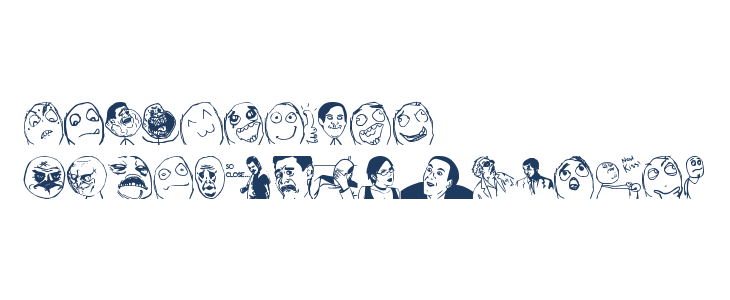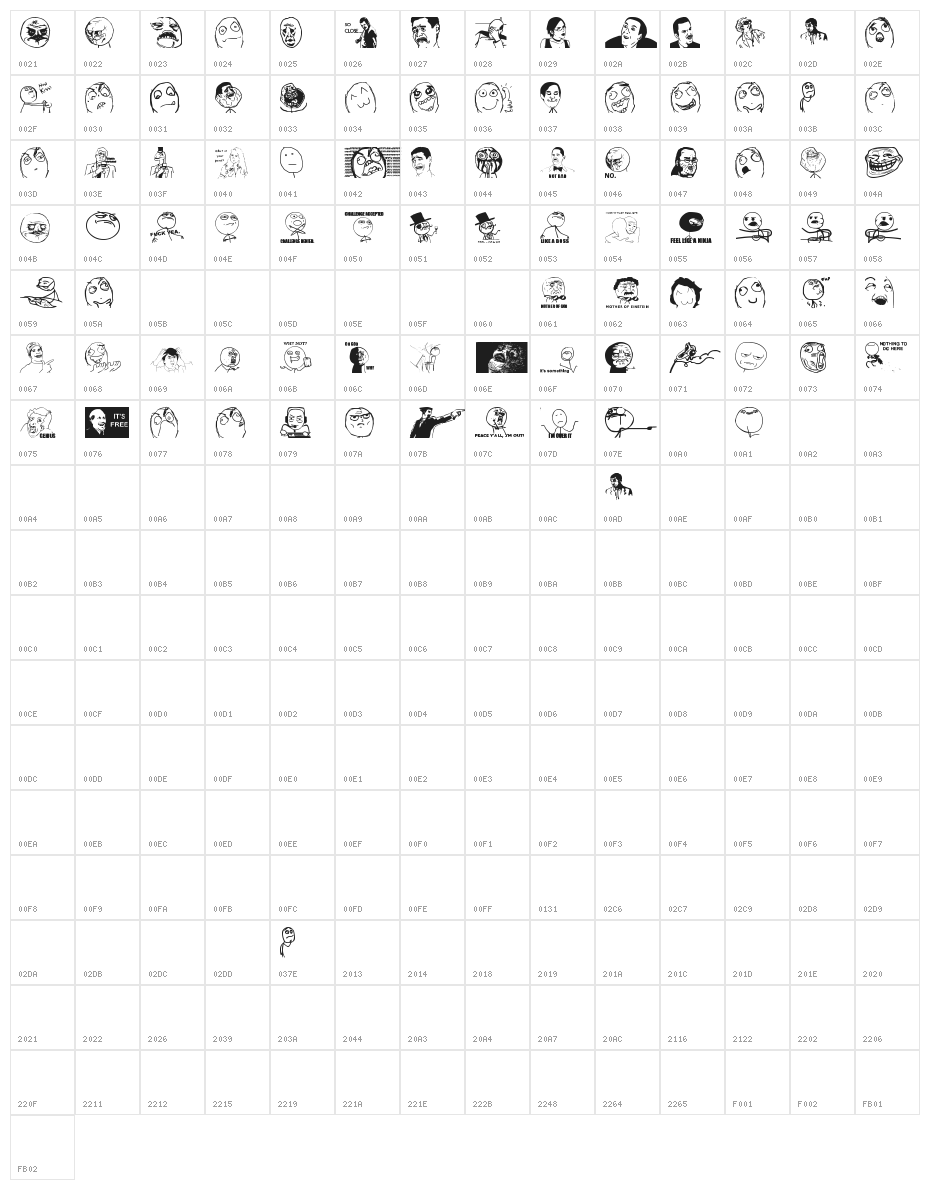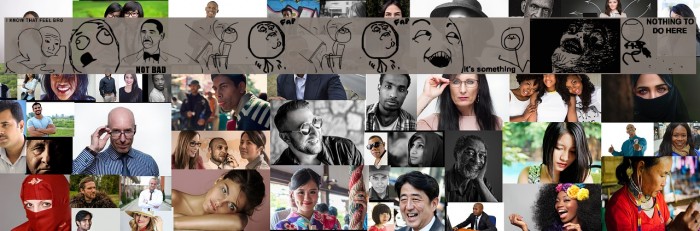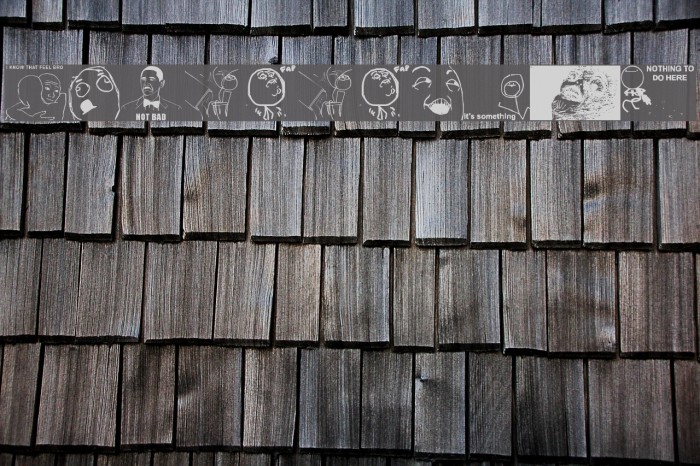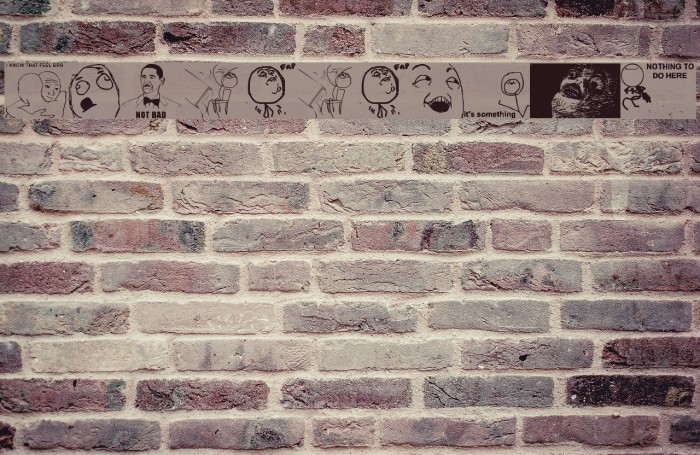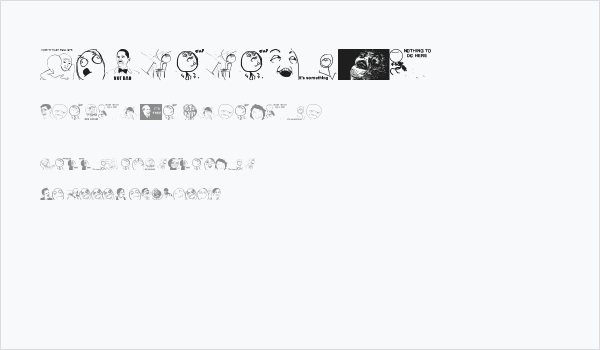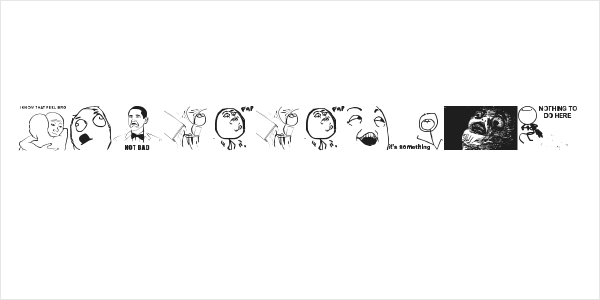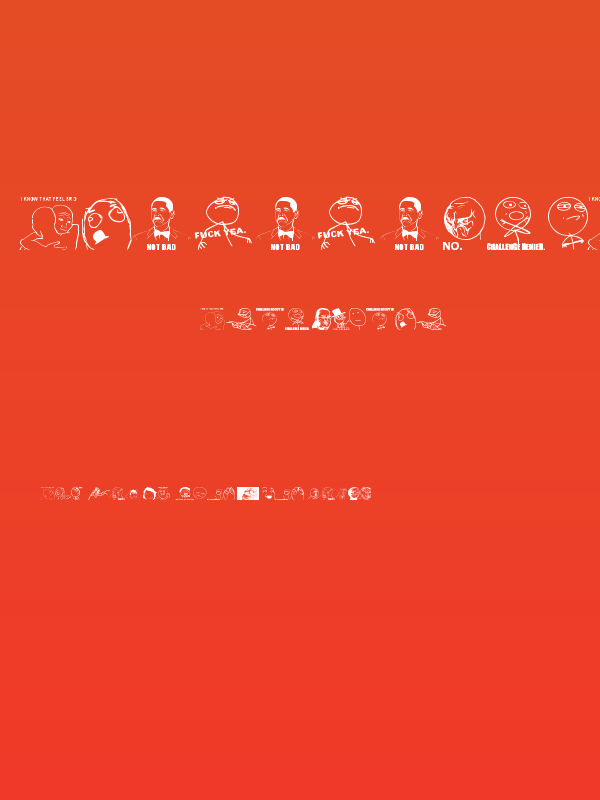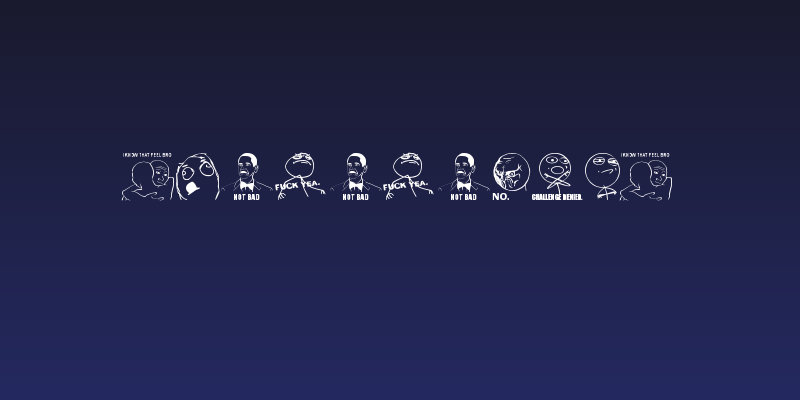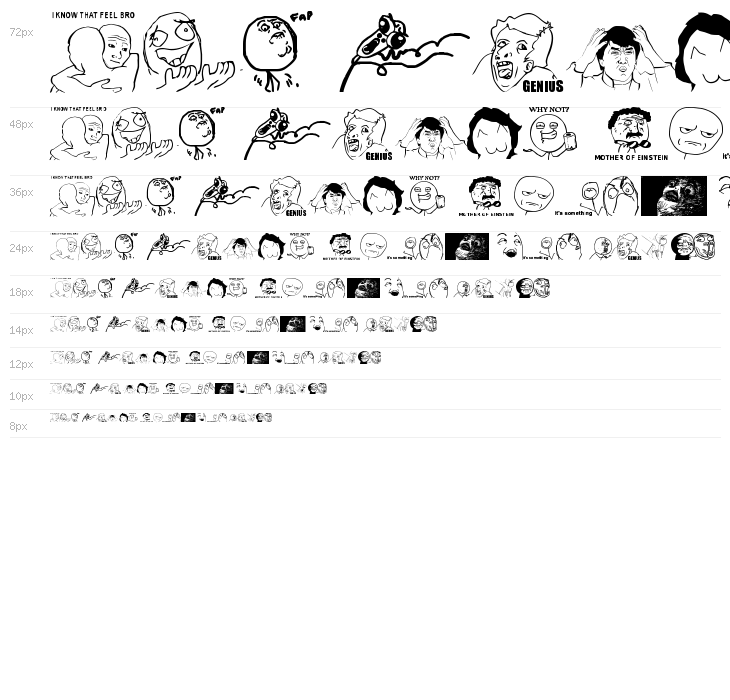
THEmemefont Font
THEmemefont Description
A decorative display font composed of iconic internet meme faces and expressions, each glyph representing a different meme character or reaction, rendered in a hand-drawn, comic style with bold, irregular strokes and high visual contrast.
Overall StyleDecorative, Humorous, Comic
Use CaseMemes, Posters, Social Media, Informal Graphics
Proposed ProjectsSocial media graphics, meme creation, humorous posters, novelty t-shirts, digital stickers.